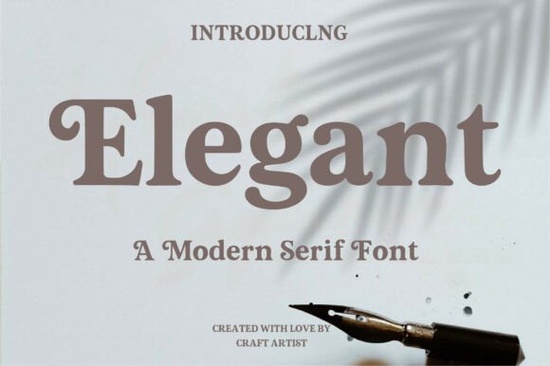
Finding the right serif font for a branding project, editorial layout, or product packaging can feel overwhelming. There are thousands of options, and many look similar at first glance. The Elegant Font stands out because it takes a traditional serif structure and softens it rounded terminals, gentle curves, and a friendly yet luxurious feel that works in a surprising number of contexts.
What Makes This Serif Font Different From a Classic Serif?
Most traditional serifs have sharp edges, high contrast between thick and thin strokes, and a formal tone. Elegant takes a different approach. It uses a medium weight with low contrast, which gives text a solid, even presence on the page. The rounded terminals the ends of each stroke add warmth that classic serifs usually lack.
The result is a typeface that reads well at both large and small sizes. In a headline, it looks polished and commanding. In a paragraph, it stays comfortable to read. That balance is harder to find than most people think, and it's what makes this Elegant typeface particularly useful for designers who need one font to handle multiple roles in a single project.
Who Should Use This Font?
This font works well for a wide range of creative professionals. Here are some of the people who tend to get the most out of it:
- Branding designers working on logos, business cards, and style guides for upscale clients
- Print-on-demand sellers creating mugs, tote bags, and apparel with text-based designs
- Publishers and editorial designers laying out magazines, book covers, or lookbooks
- Small business owners building packaging, menus, or signage that needs to feel refined
- Crafters and hobbyists making invitations, greeting cards, or wall art in Cricut or Silhouette software
Because of its friendly-yet-luxurious character, it avoids feeling stiff or cold. That makes it a smart choice when you want quality without pretension think boutique candle packaging rather than a corporate annual report.
Where Does Elegant Font Work Best in Real Projects?
Its versatility is one of its strongest qualities. Based on how designers typically use serif fonts like this one, here are some practical applications:
- High-end branding logos, brand marks, and stationery for fashion, beauty, or lifestyle brands
- Luxury product packaging labels for skincare, wine, candles, or artisan goods
- Editorial design magazine layouts, blog graphics, and social media quotes
- Wedding and event stationery invitations, menus, and programs with a sophisticated tone
- Web headers and hero text homepage banners that need to make a strong first impression
How Does It Compare to Other Elegant Serifs on Creative Fabrica?
If you're browsing serif fonts and trying to decide, it helps to compare a few options side by side. Fonts like Stylish Flairs lean more decorative, with bolder stylistic details that work well for display text but may be harder to read in longer passages.
Meanwhile, Kalista Elegant offers its own take on the refined serif category, with slightly different proportions and curves. It's worth comparing both if you want to find the exact right personality for your project.
What sets this particular Elegant serif font apart is its low-contrast, rounded design. It sits comfortably between minimal and ornate, which means it adapts to different project types without feeling out of place.
Quick Comparison at a Glance
- Elegant Font balanced, warm, versatile across branding and editorial
- Stylish Flairs more decorative, best for display and headline use
- Kalista Elegant refined serif with its own distinct proportions
If you're looking for a modern serif that balances readability with style, the Elegant Font is worth a closer look. Start by downloading a test file, setting a few sample headlines and paragraphs, and seeing how it fits your current project. A font that looks good in a preview and holds up in a real layout is always the one worth keeping in your library.